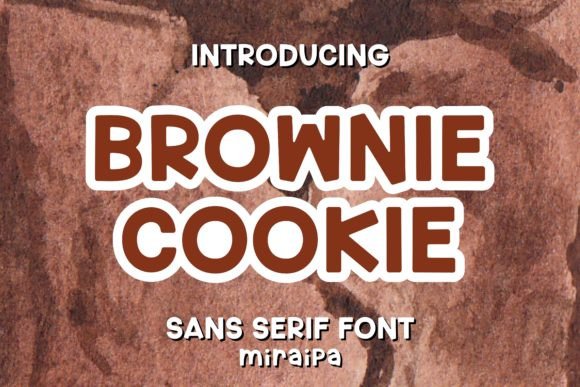
The Sweetest Font You’ll Ever Meet: Brownie Cookie
Have you ever been in the middle of a design project, and suddenly, you just can’t seem to find the right font? I know I have! It was a sunny Saturday morning when I was working on a fun Easter-themed project for a client. I had all the graphics and colors sorted out, but the font just wasn’t cooperating. That’s when I stumbled upon the adorable Brownie Cookie font. It was love at first sight! 😍
A Personal Review: What I Love About Brownie Cookie
So, what makes Brownie Cookie so special? Here are a few things that I absolutely adore about this font:
• ✨ Cute and Playful: Brownie Cookie is designed in a charming sans serif font style that’s perfect for fun and creative projects.
• ✅ Whimsical and Quirky: This font has a bit of an edge to it, making it ideal for designs that need a friendly touch.
• 🎉 Versatile: From Easter to Halloween, and from back to school to Christmas, Brownie Cookie is the perfect fit for any seasonal or holiday-themed project.
While Brownie Cookie is an amazing font, there are a few minor things to keep in mind:
• ⚠️ Limited Use in Formal Designs: Due to its playful nature, Brownie Cookie might not be the best fit for formal or professional designs.
• 🤔 Glyphs and OpenType Features: While Brownie Cookie does have some lovely OpenType features, it might require a bit of exploration to get the most out of it.
Brownie Cookie comes with some fantastic OpenType features and glyphs that can take your designs to the next level. Here are a few tips:
• Stylistic Alternates: Experiment with different stylistic alternates to add some variety to your text.
• Glyphs: Look for special characters like ligatures, ornaments, and swashes to add a touch of whimsy.
While the true story behind Brownie Cookie’s creation is unknown, it’s easy to imagine that the designer was inspired by the joy of baking and the whimsy of childhood. Perhaps they wanted to create a font that would bring a smile to people’s faces and add a touch of playfulness to their designs.
What type of projects is Brownie Cookie best suited for? Brownie Cookie is perfect for fun and creative projects like Easter, back to school, weddings, party decorations, invitations, Fall, Halloween, Christmas, posters, blogs, clothing, child-related designs, greeting cards, and social media posts.
Is Brownie Cookie a difficult font to use? No, Brownie Cookie is relatively easy to use. With its simple and intuitive design, you can start creating beautiful text-based designs in no time.
In conclusion, Brownie Cookie is a delightful font that’s sure to bring a touch of whimsy and playfulness to your designs. With its charming sans serif style and versatile nature, it’s perfect for a wide range of creative projects. So why not give it a try and see what amazing designs you can create?